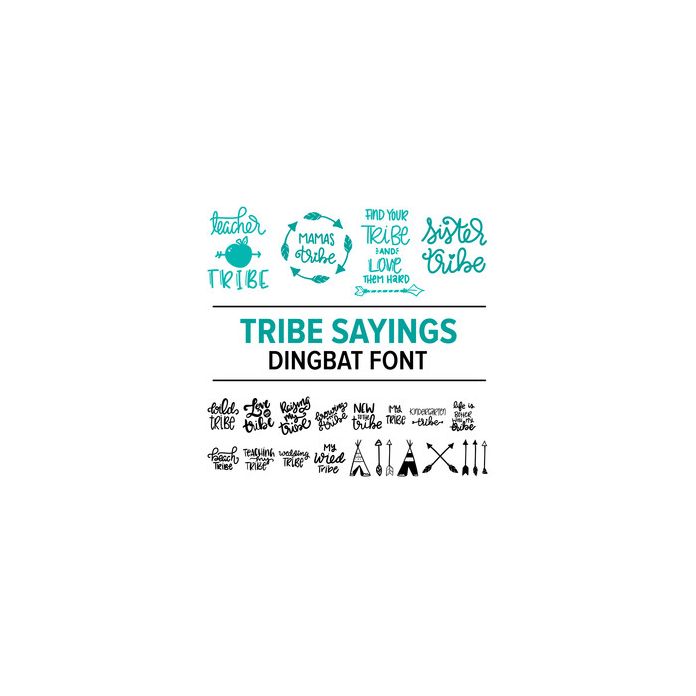
tribe sayings dingbat font
This dingbat font comes in OTF format. Each uppercase and lowercase letter corresponds to a tribe-themed hand lettered phrase.